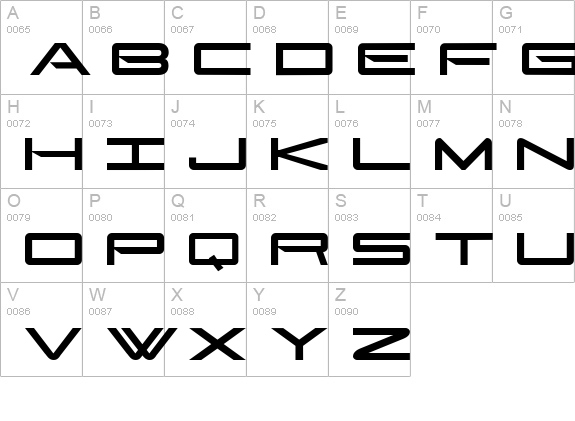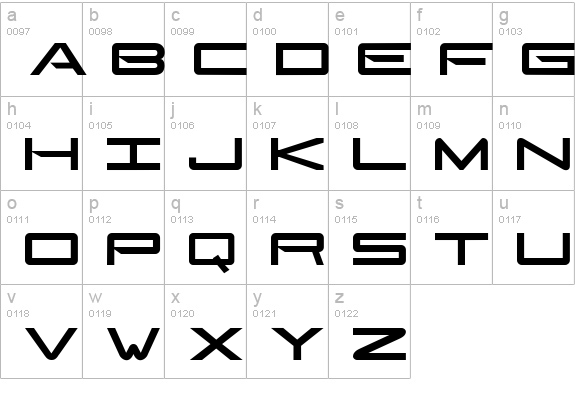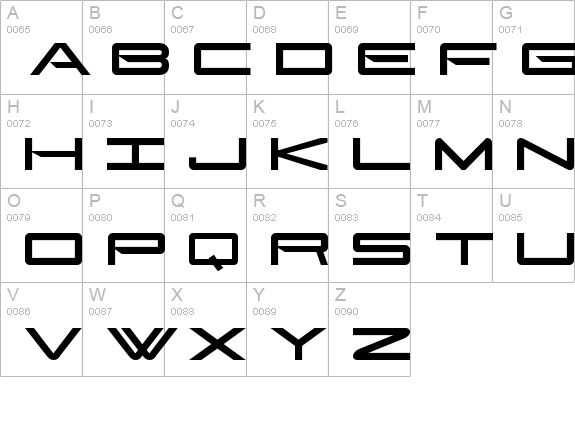
GonzalesSans Font Details
Introducing GonzalesSans font, a versatile and modern typeface that combines sleek elegance with a touch of sophistication. This font features clean lines, rounded edges, and a balanced overall design, making it perfect for a wide range of projects including branding, editorial design, packaging, and more. GonzalesSans font is not only visually appealing but also highly readable, making it suitable for both display and text use. Its extensive character set includes uppercase and lowercase letters, numbers, punctuation marks, and special symbols, ensuring that you have everything you need to create stunning designs. The best part? GonzalesSans font is completely free to download at FontsMarket.com. Whether you're a professional designer looking to add a new font to your collection or a hobbyist exploring typography for the first time, GonzalesSans font is a fantastic choice that won't cost you a penny. Download it today and elevate your design projects with this beautiful and versatile typeface.